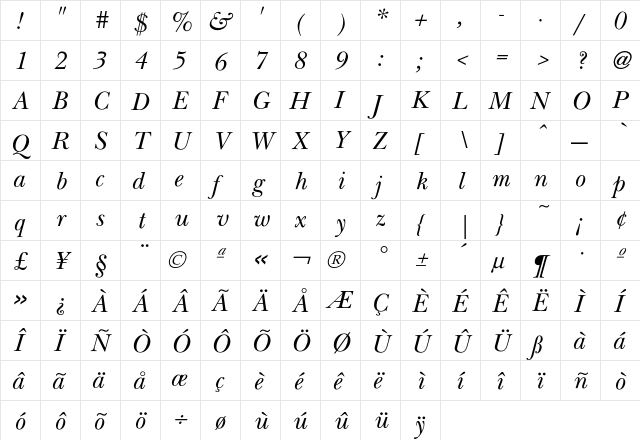
New BaskervilleItalic Font Preview
New BaskervilleItalic
Design Context for New Typeface
New offers clean, dependable letterforms without strong stylistic allegiance, making it a practical choice for designers who need flexibility. The dynamic lean of this cut emphasises speed and emphasis in any layout.
Pro Tip: Use New for emphasis, pull quotes, and subheadings where its slanted energy can add rhythm to the layout.